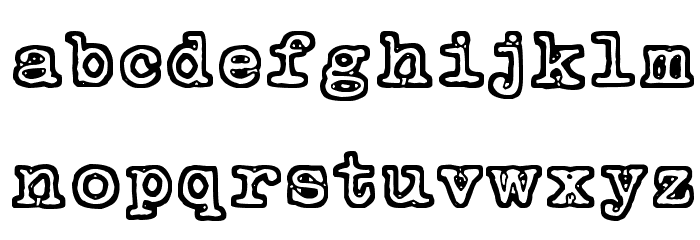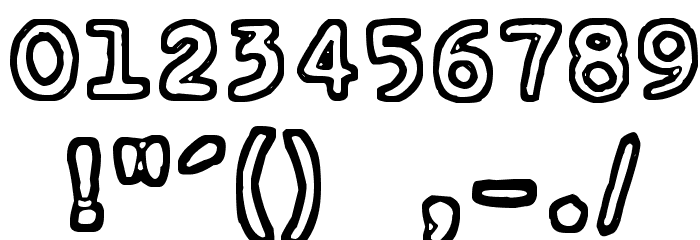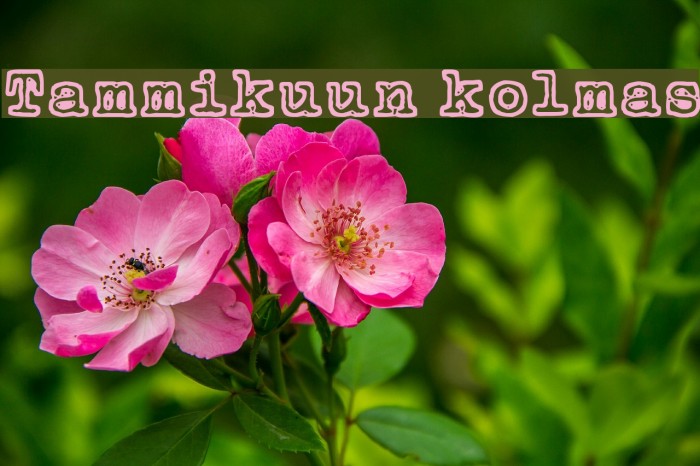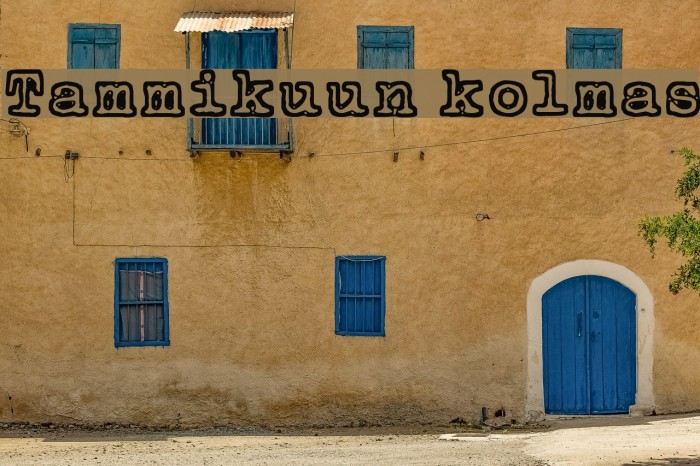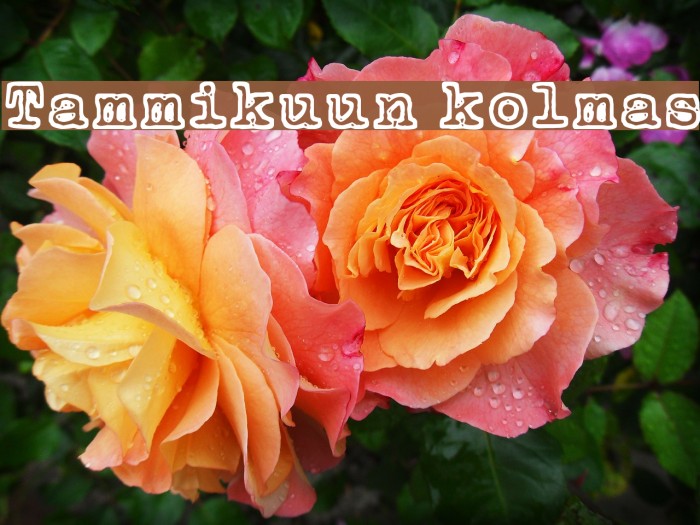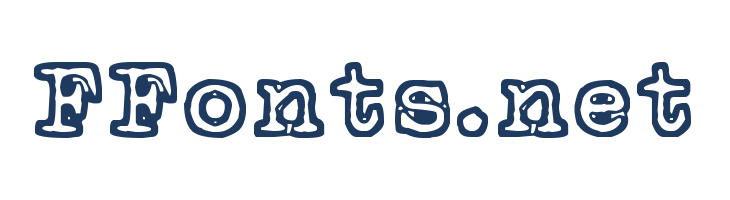
Tammikuun kolmas Font
This font features a bold, decorative style with a playful and slightly rugged appearance. Each character is outlined, giving it a distinct and eye-catching look. The uppercase and lowercase letters maintain a consistent style, with rounded edges and a hand-drawn feel. The numbers and special characters follow the same aesthetic, ensuring a cohesive appearance across all glyphs. This font is ideal for projects that require a fun and informal touch, such as children's books, posters, or creative branding.
A bold, decorative font with a playful, outlined style.
- Proposed Projects: Ideal for children's books, posters, creative branding, and playful designs.